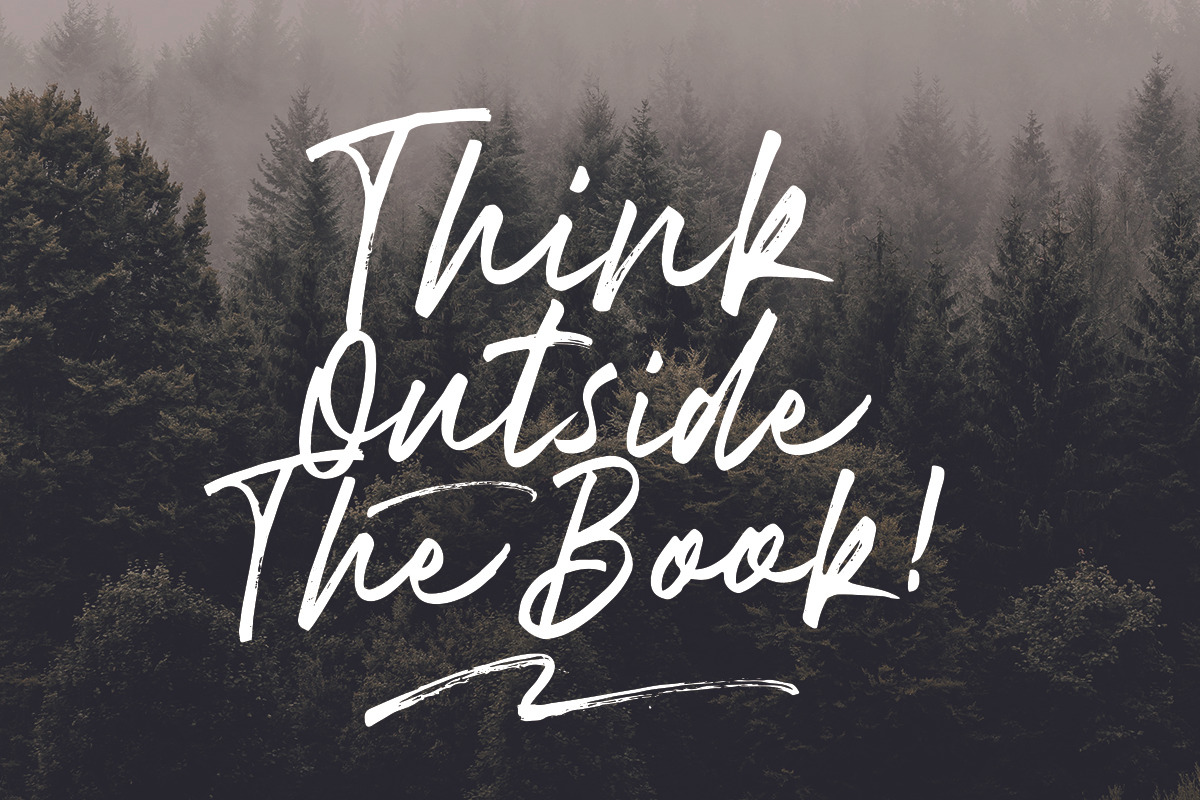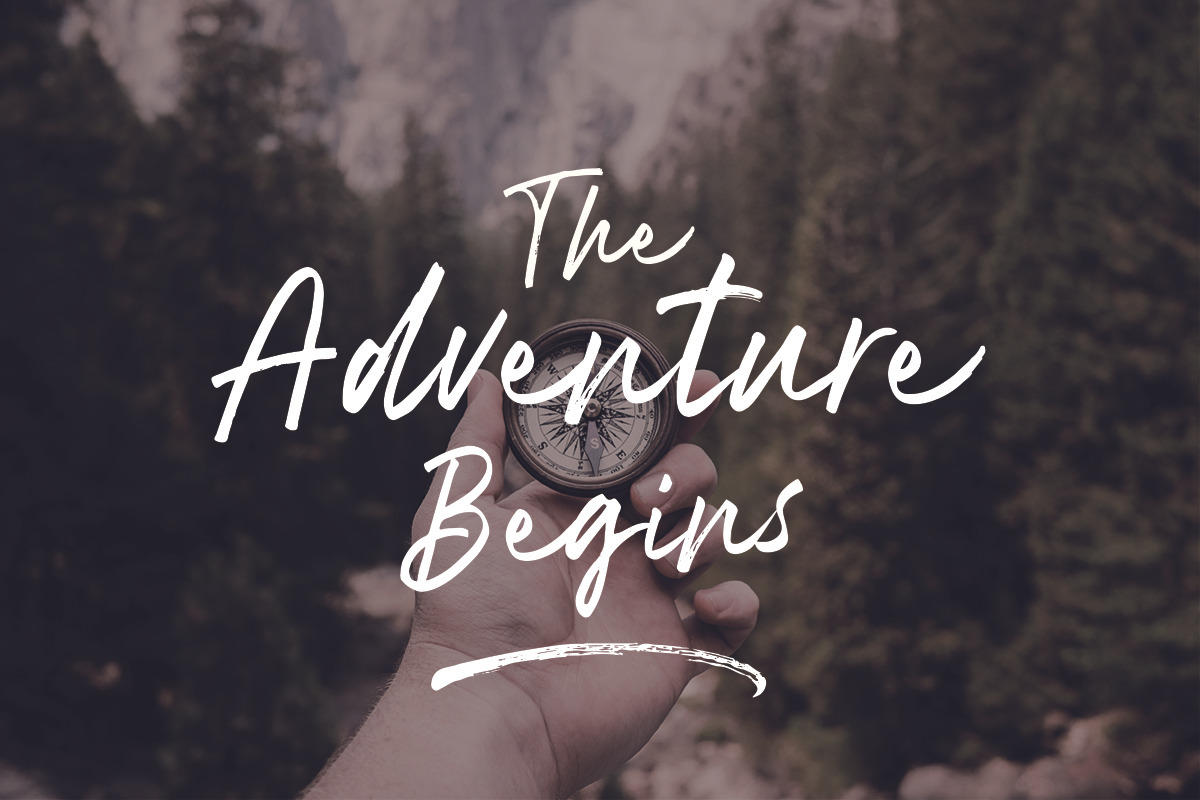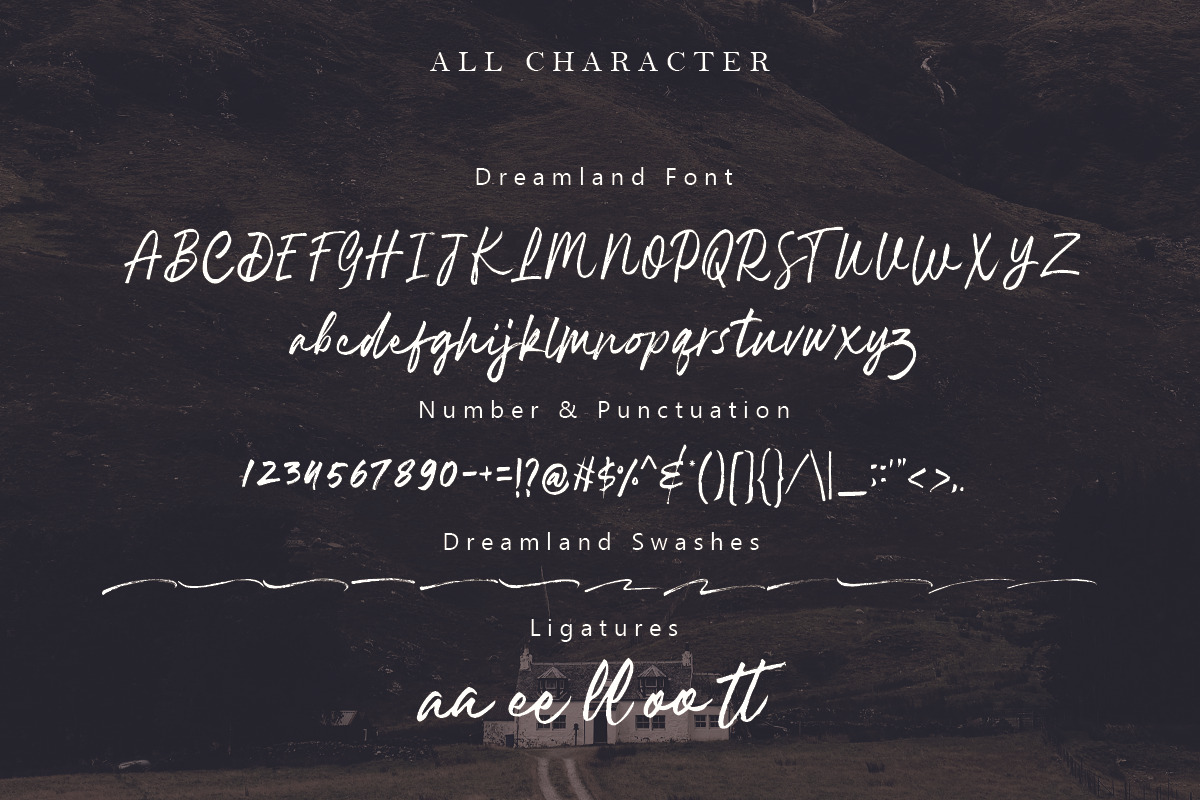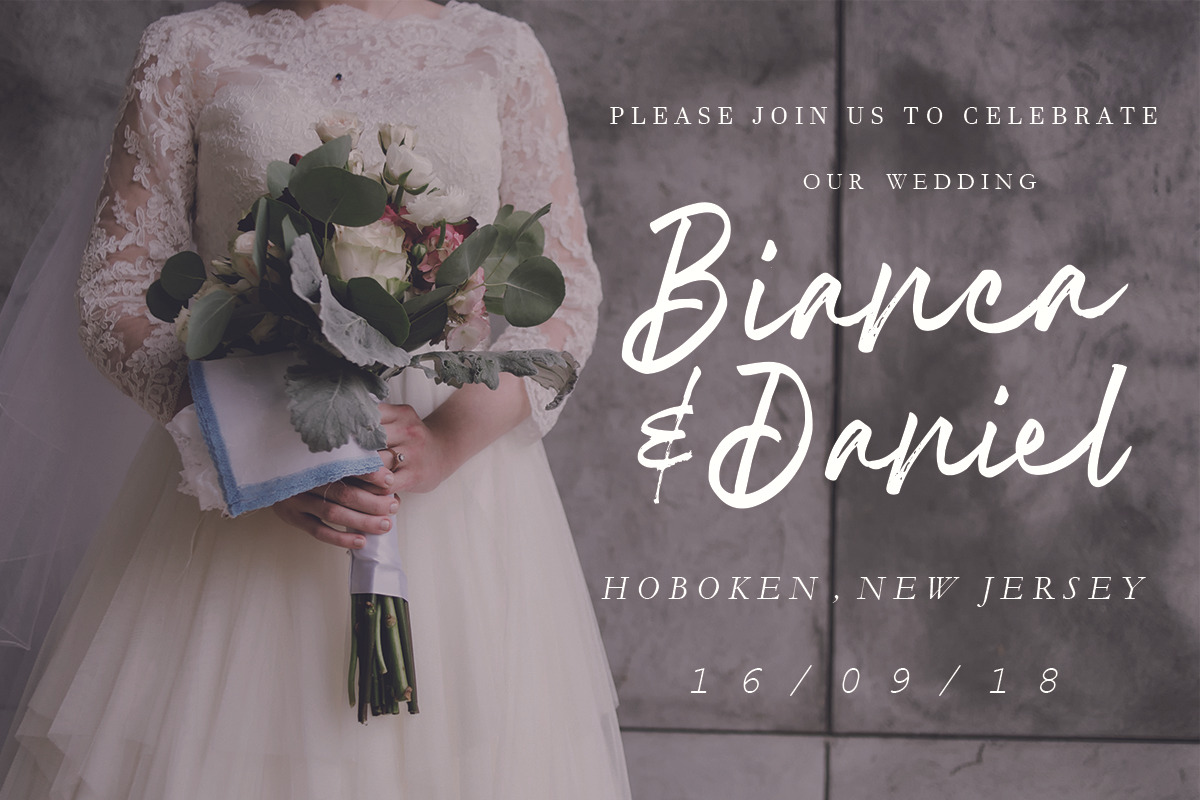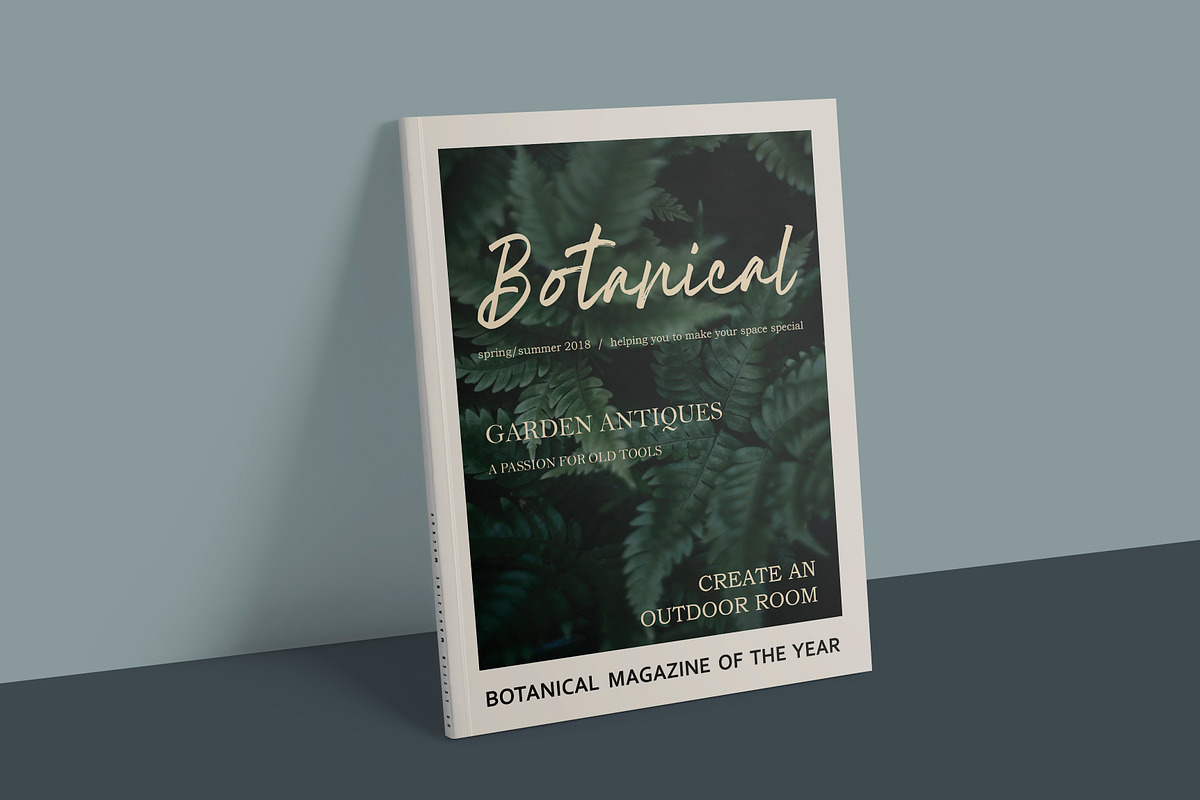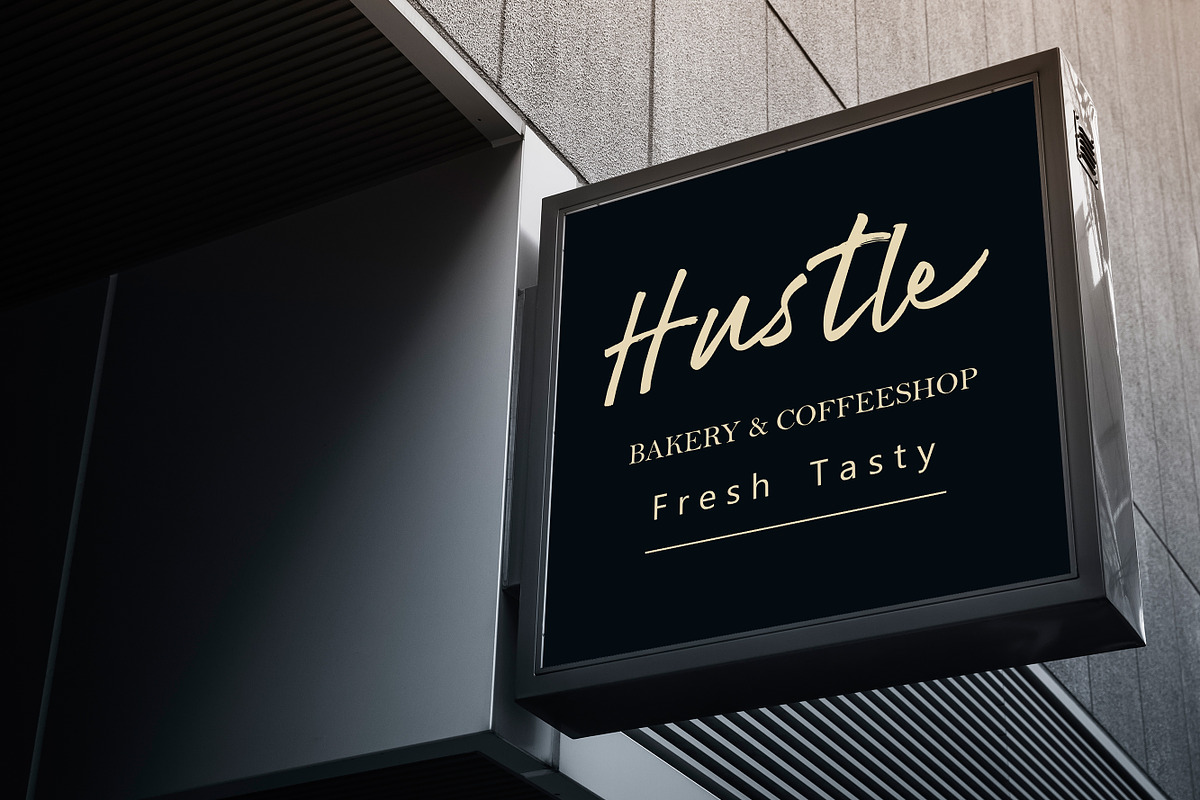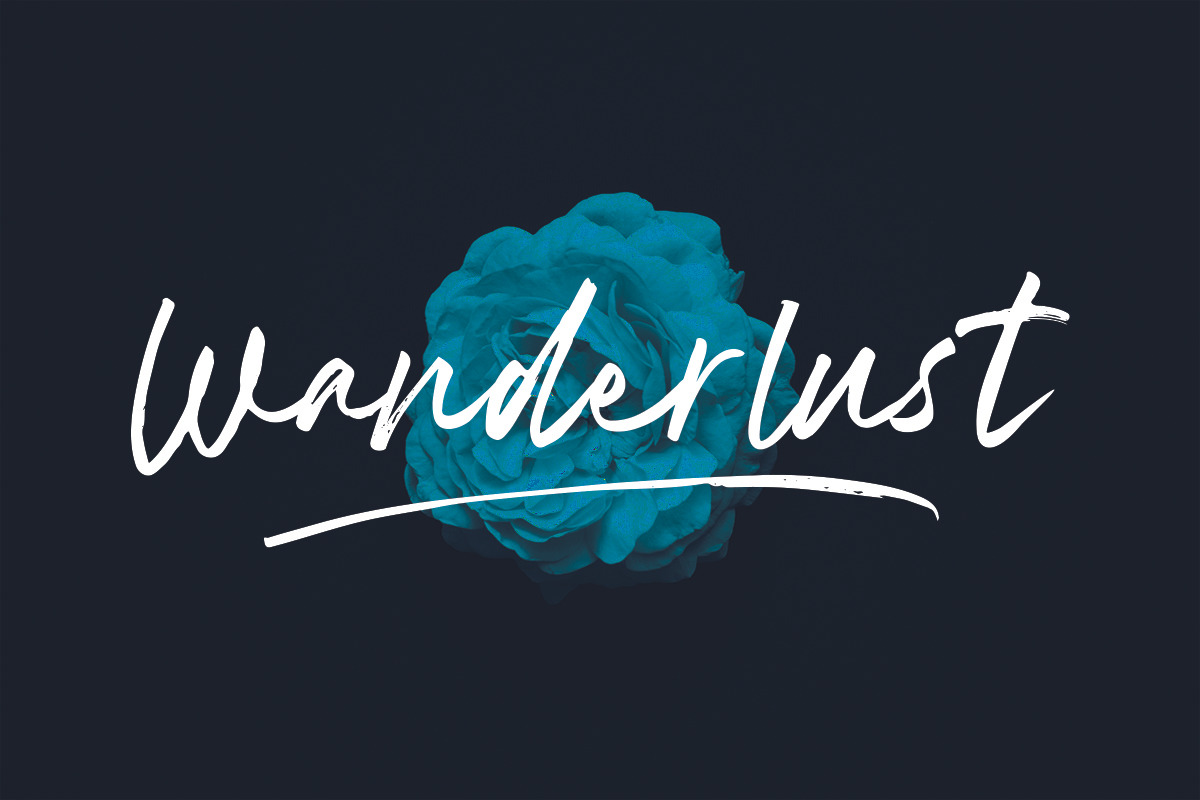
Dreamland | Brush Font
Introducing Dreamland is a paper that is made directly by hand, Dreamland is designed to be combined perfectly and allows you to make writing like your own handwriting.
Dreamland Comes with uppercase characters, basic punctuation, numbers,
Dreamland | Brush Font by Megi Satyo Widodo fits naturally into Branding, posters, packaging, typography.